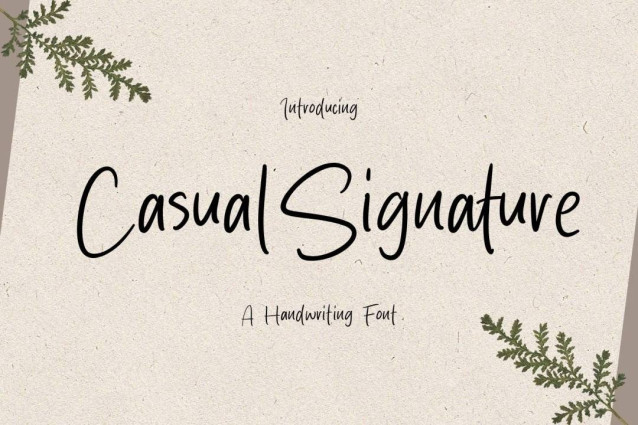
Casual Signature Font
Casual Signature Font is a simple and friendly handwritten font. Its natural and unique style makes it incredibly fitting to a large pool of designs. The only limit is your imagination!